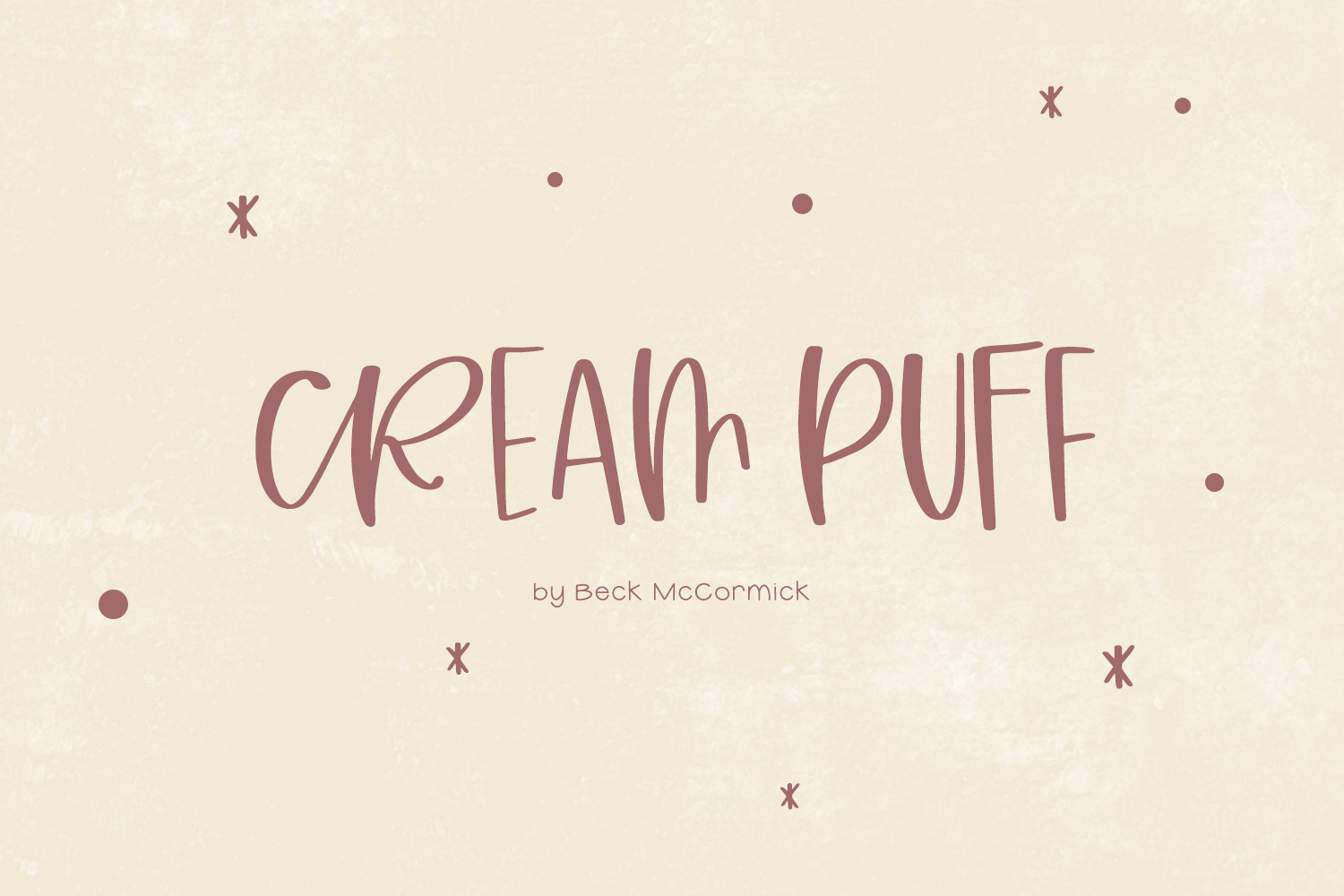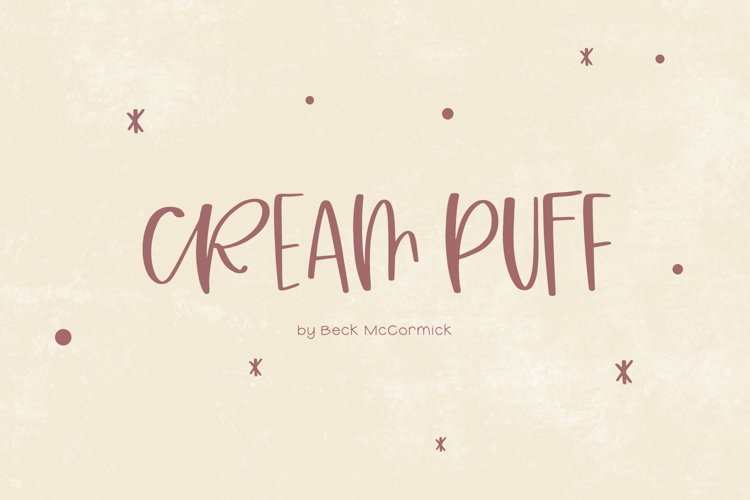
Cream Puff Sans Font
Say hello to Cream Puff, an all-caps sans font. Cream Puff is cute and quirky.
Cream Puff is best for:
- feminine, crafty projects with your Cricut or Silhouette machine, or your SVG design business
- farmhouse decor and crafts
- website design + website accents, blog design
- feminine graphic tee shirt design & other apparel
Cream Puff includes:
- full upper + lowercase characters - caps characters are programmed into lowercase spots for your convenience!
- 17 ligatures - bb, cr, dd, ee, ff, gg, ll, mm, nn, oo, or, pp, rr, ss, tr, tt, zz